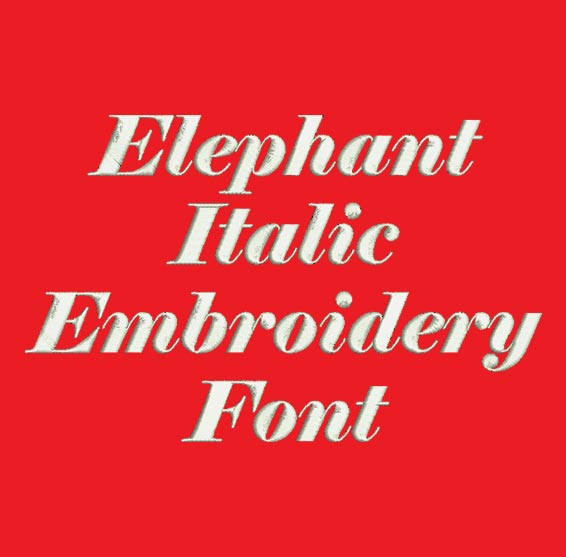
Elephant Italic Embroidery Font
Title: Elephant Italic Machine Embroidery Font
This Elephant Italic font is perfect for personalizing clothes, bags, towels and linens!
This beautiful font would look amazing as a Monogram on Totes, School bags and purses!